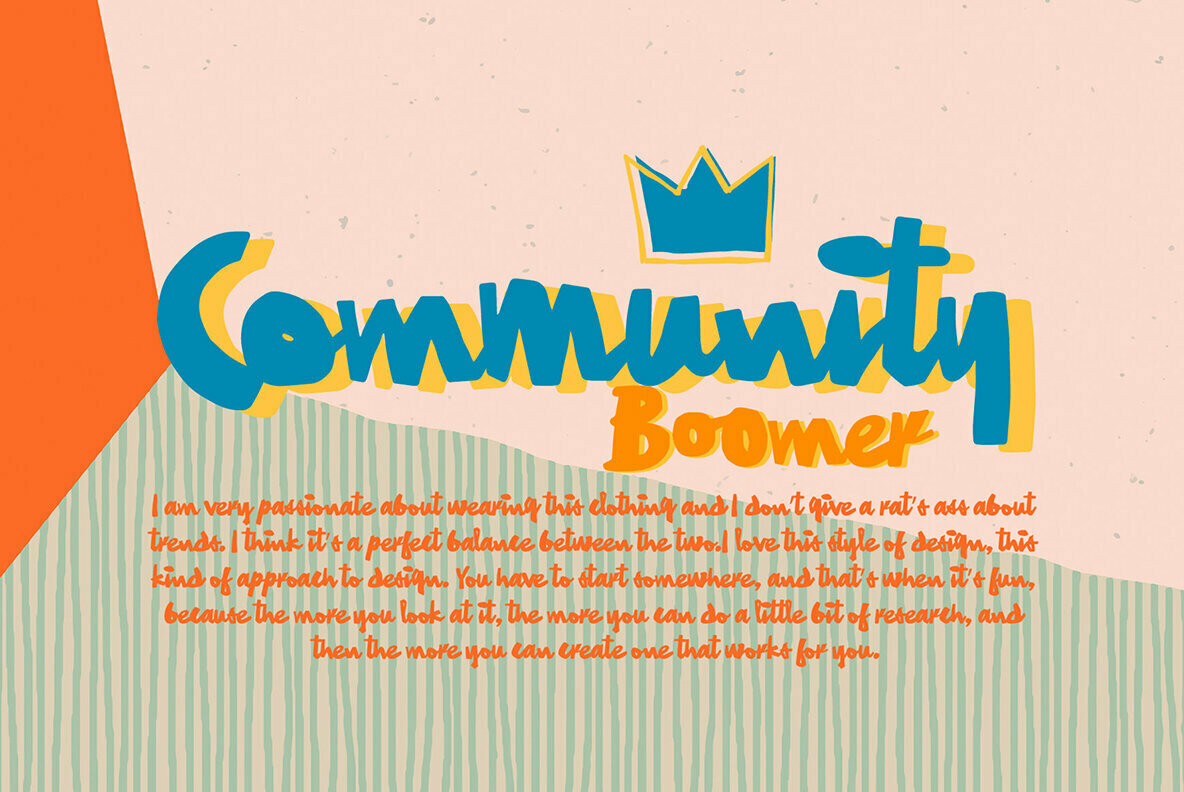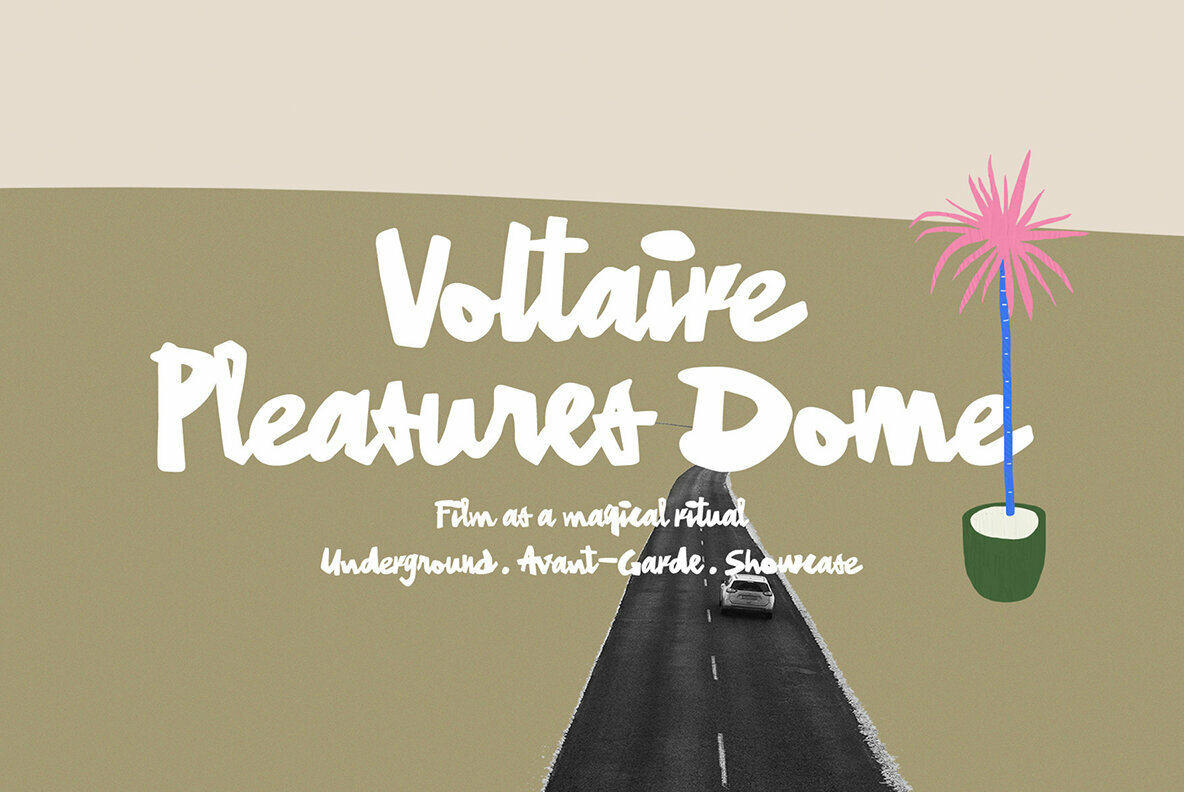
Buckless Script Font
Buckless Script Regular
Inspired by the vibrant energy of pop cultures and urban fashion, the Buckless Script font offers a bold typographic presence that enhances any creative endeavor. Its striking design is ideal for diverse projects including logotypes, printed quotes, invitations, cards, product packaging, headers, letterheads, posters, and apparel design. Features:Buckless Script: Bold Urban-Inspired Typography